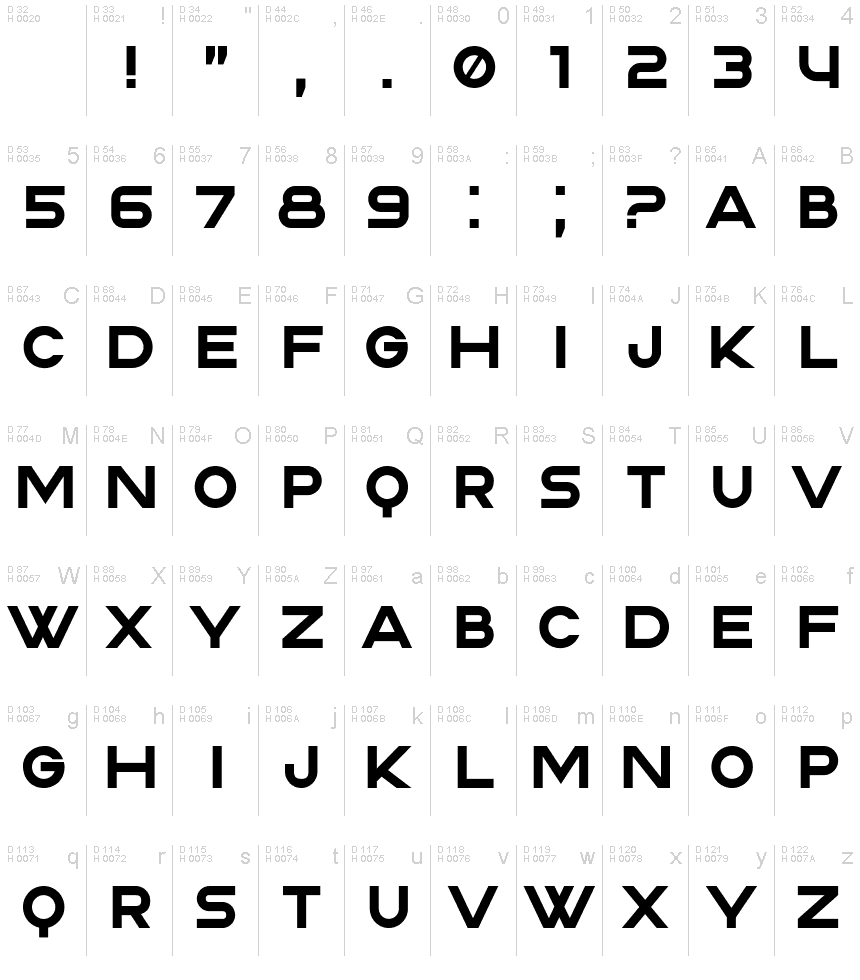
Strong Sans Regular
Looking for a font that exudes strength and boldness? Look no further than Strong Sans, the latest creation from designer Vladimir Nikolic. With its expanded width and sans serif style, this typeface is perfect for projects that require a powerful, modern look. Use it on everything from logos to website headers to product packaging – the possibilities are endless! Its clean lines and commanding presence make it ideal for fashion brands, tech startups, and more. Whatever your project needs may be, Strong Sans is sure to make a statement.